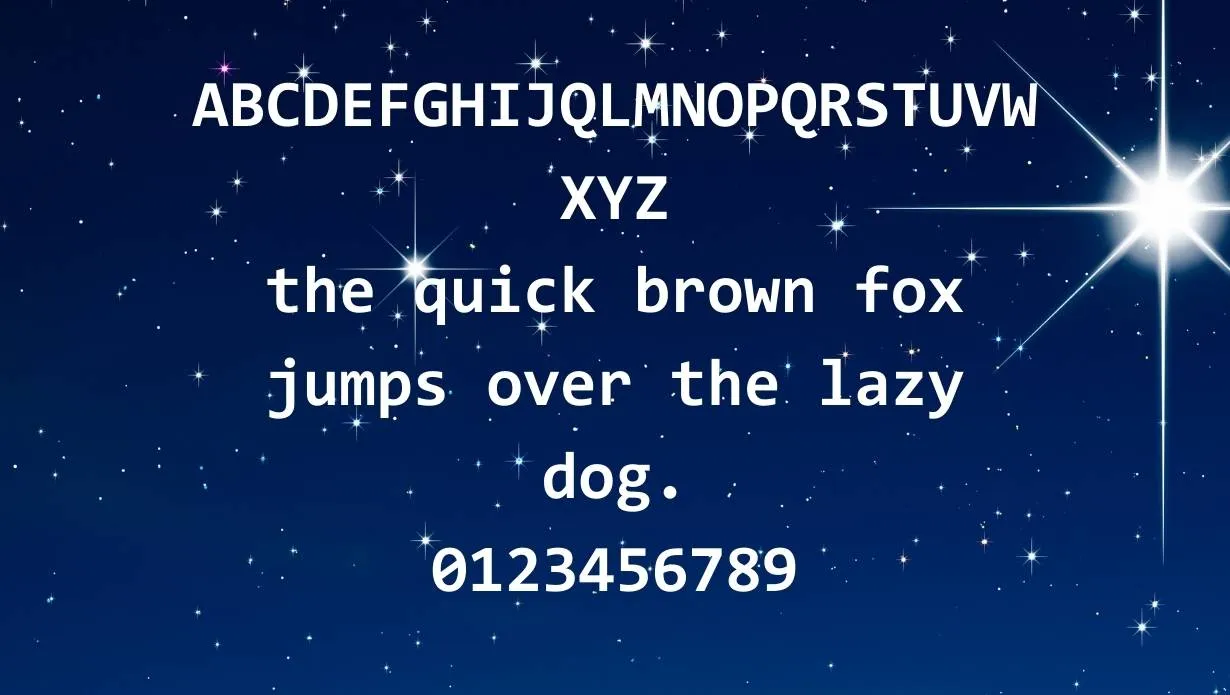
Today, We are presenting the best charming and awesome typeface. This font style name is Consolas Font. It belongs to the Sans Serif typeface family. This typeface has an impressive and outstanding texture appearance. It was designed by a famous designer named is Luc(as) de Groot.
| Name | Consolas Font |
| Designer | Luc(as) de Groot |